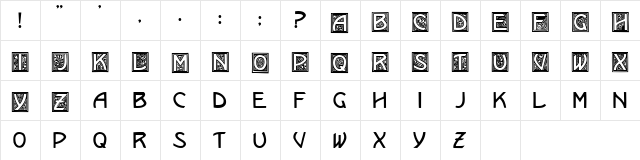
Kramer Medium
Design Context for Kramer Typeface
Kramer is a composed and adaptable typeface that performs quietly and consistently across a wide range of design contexts.